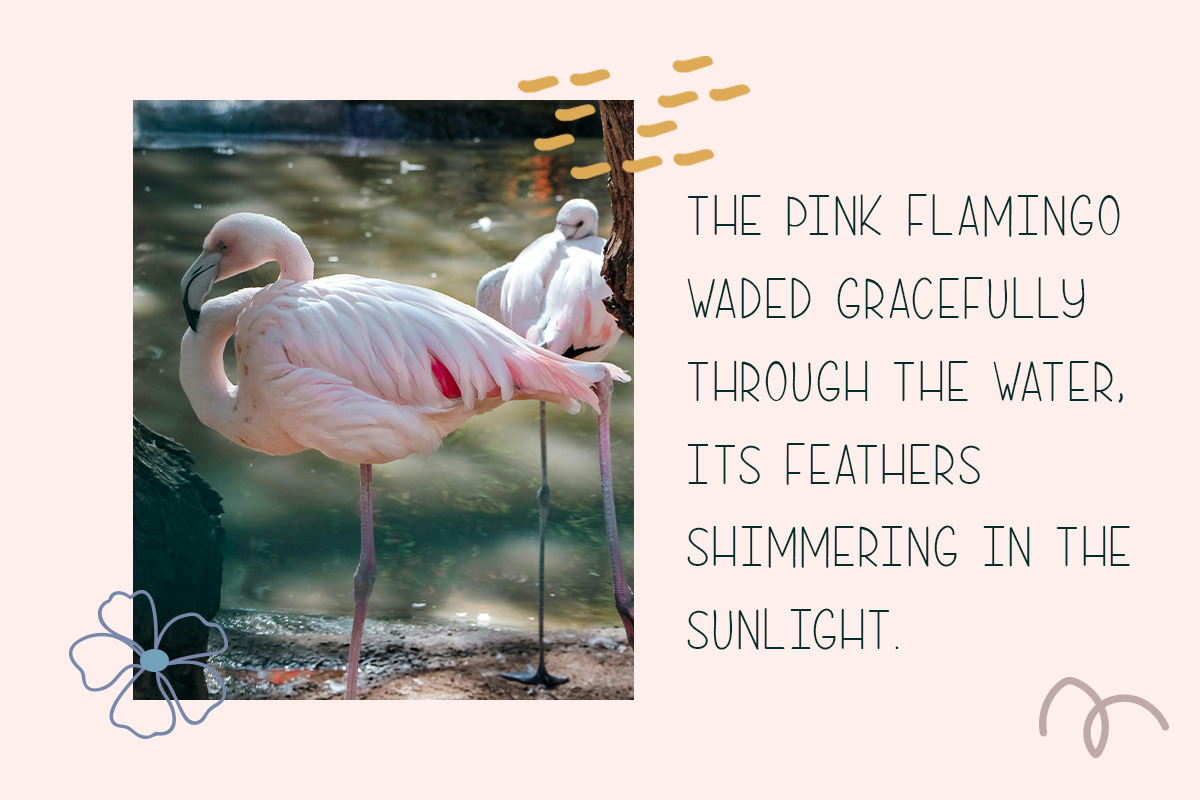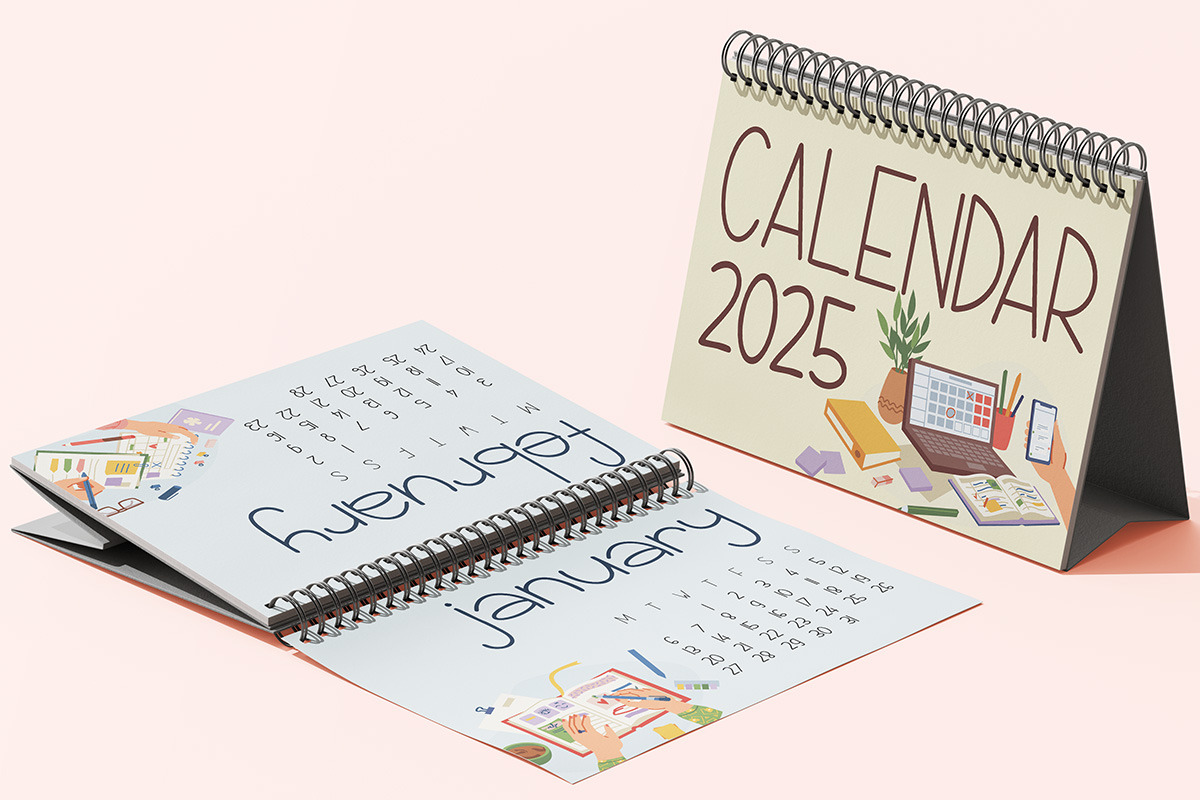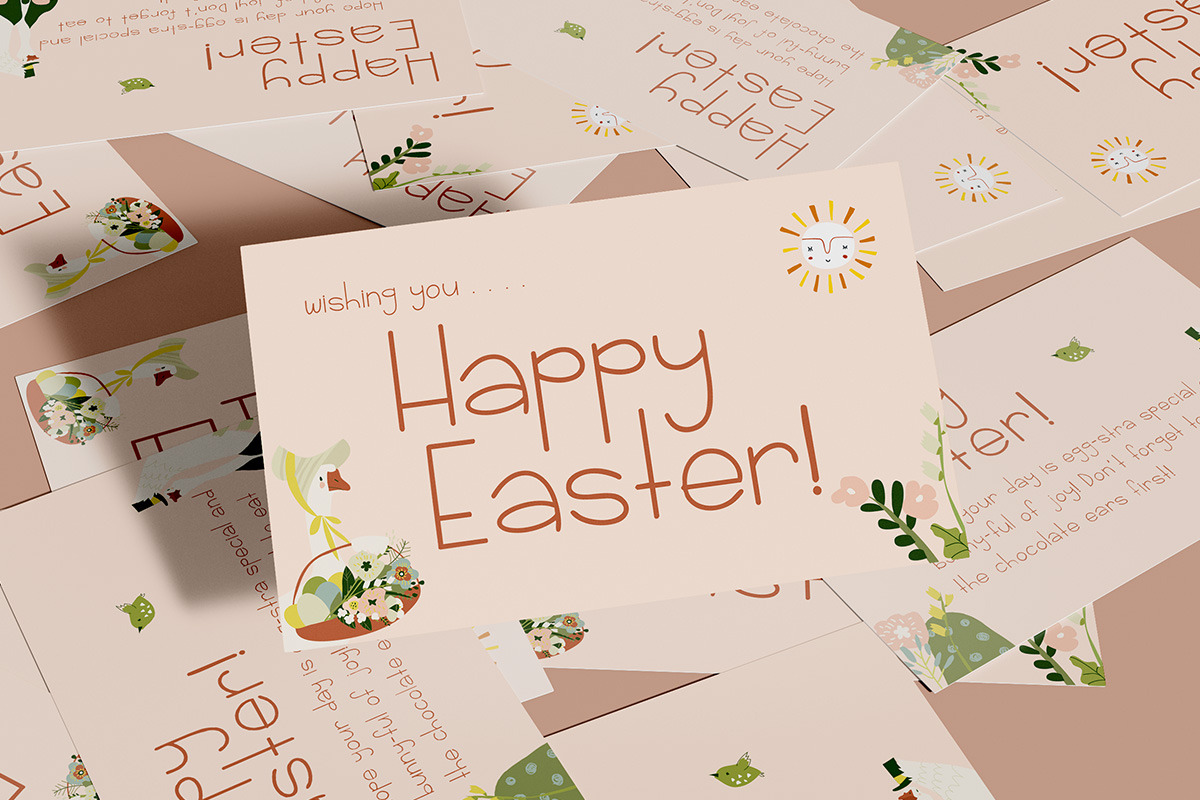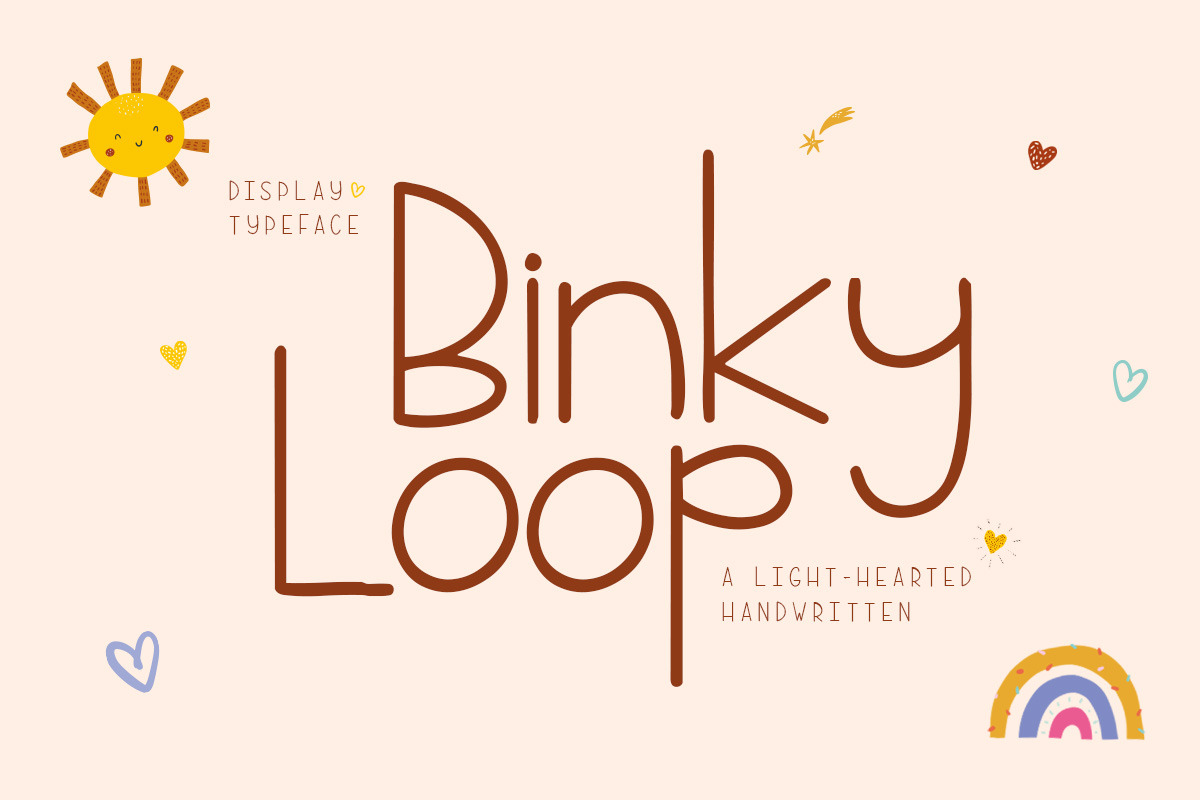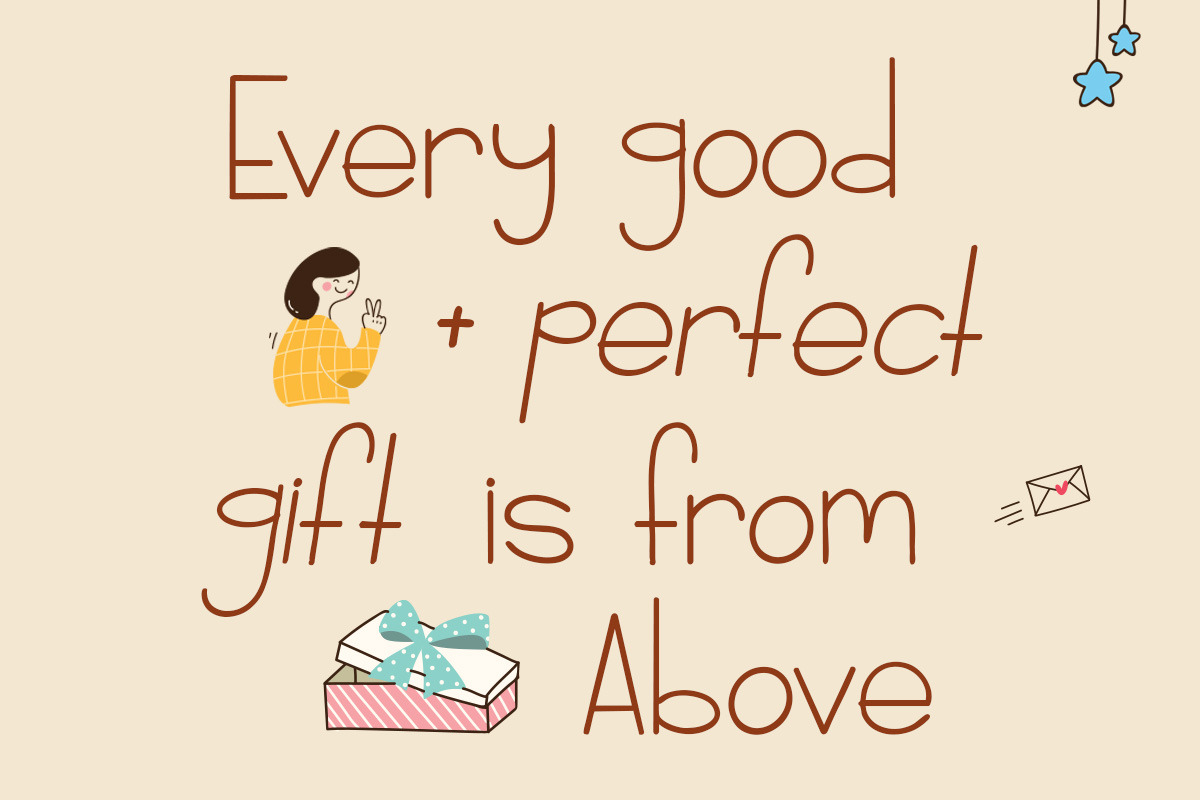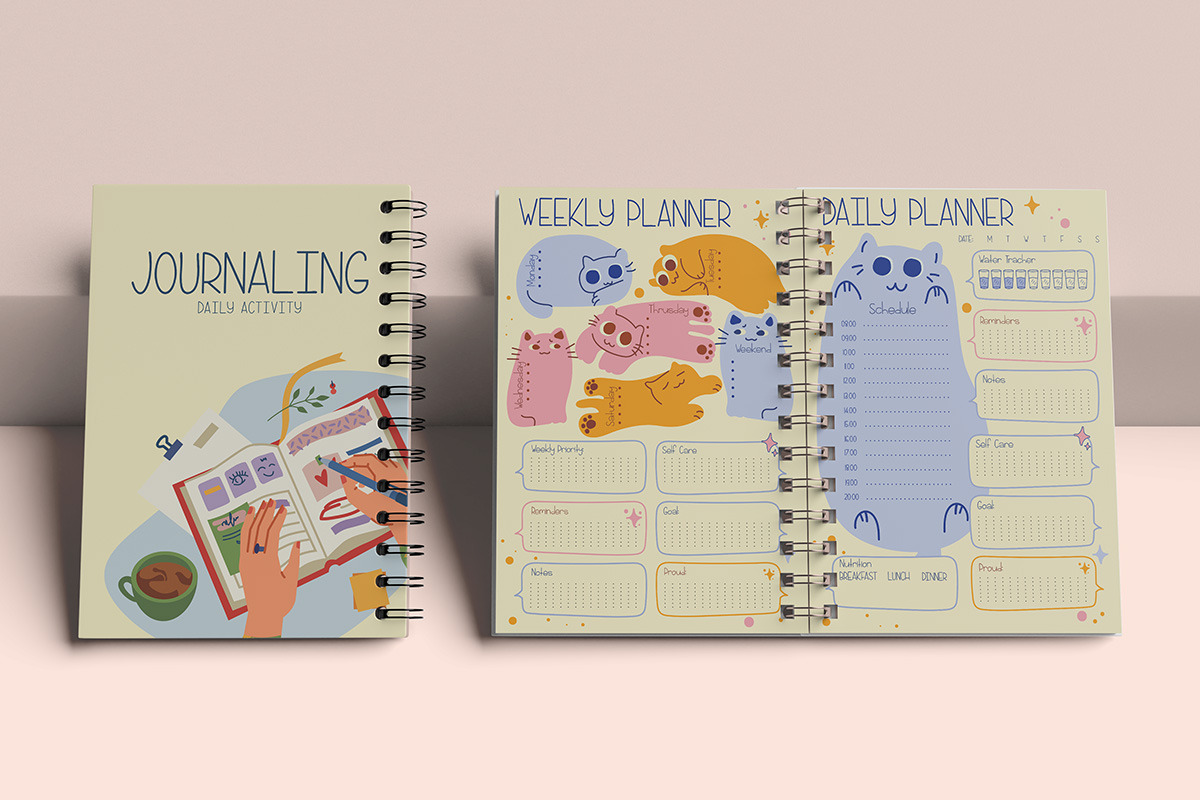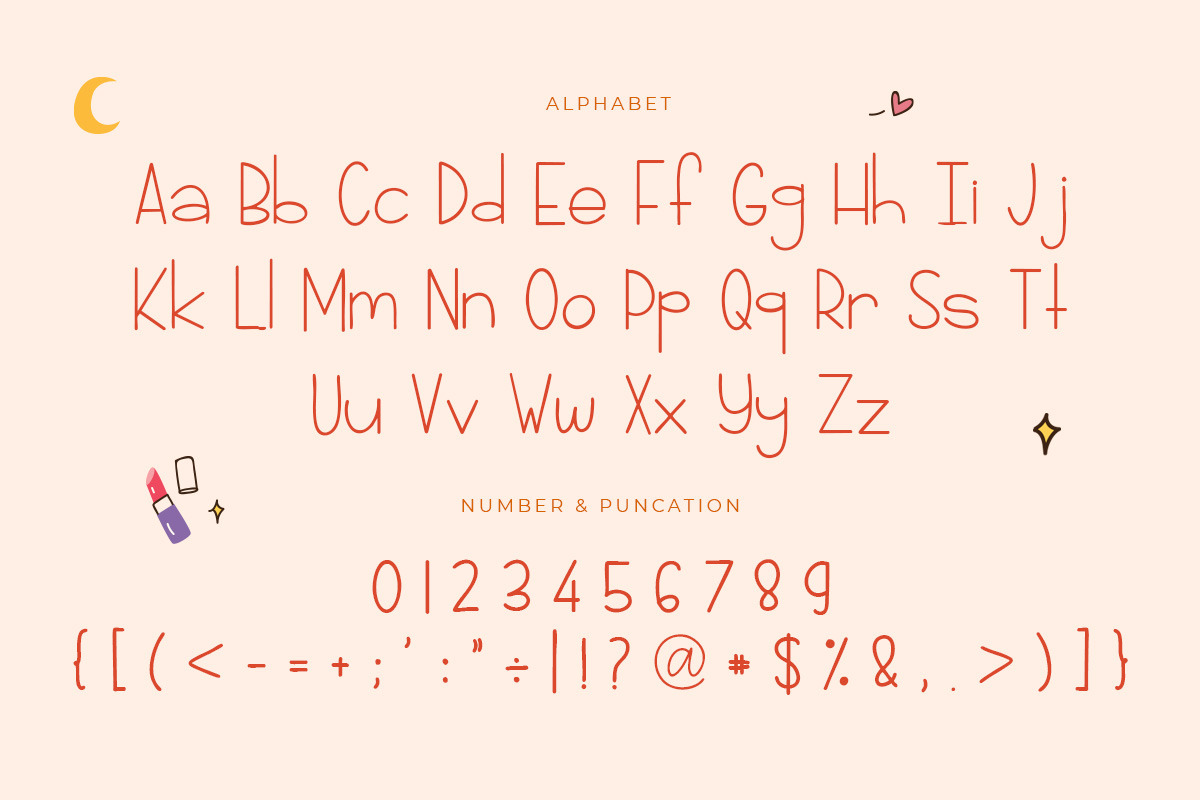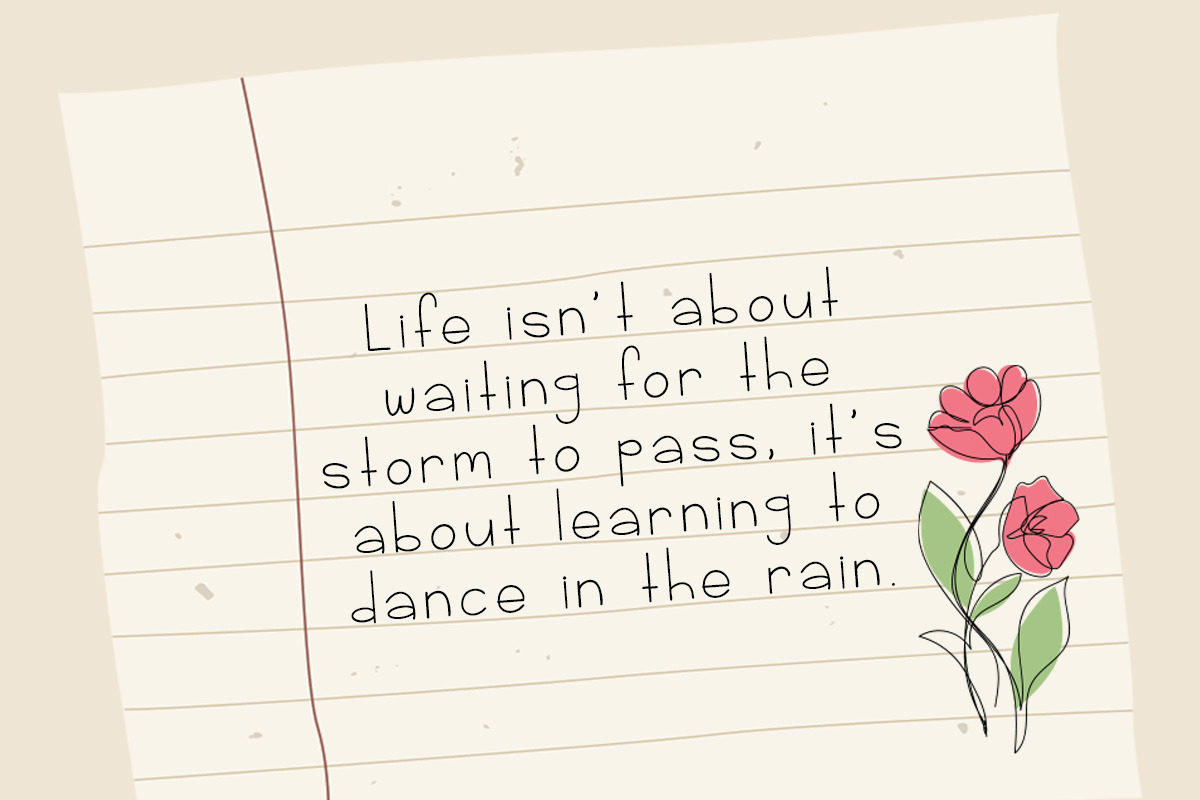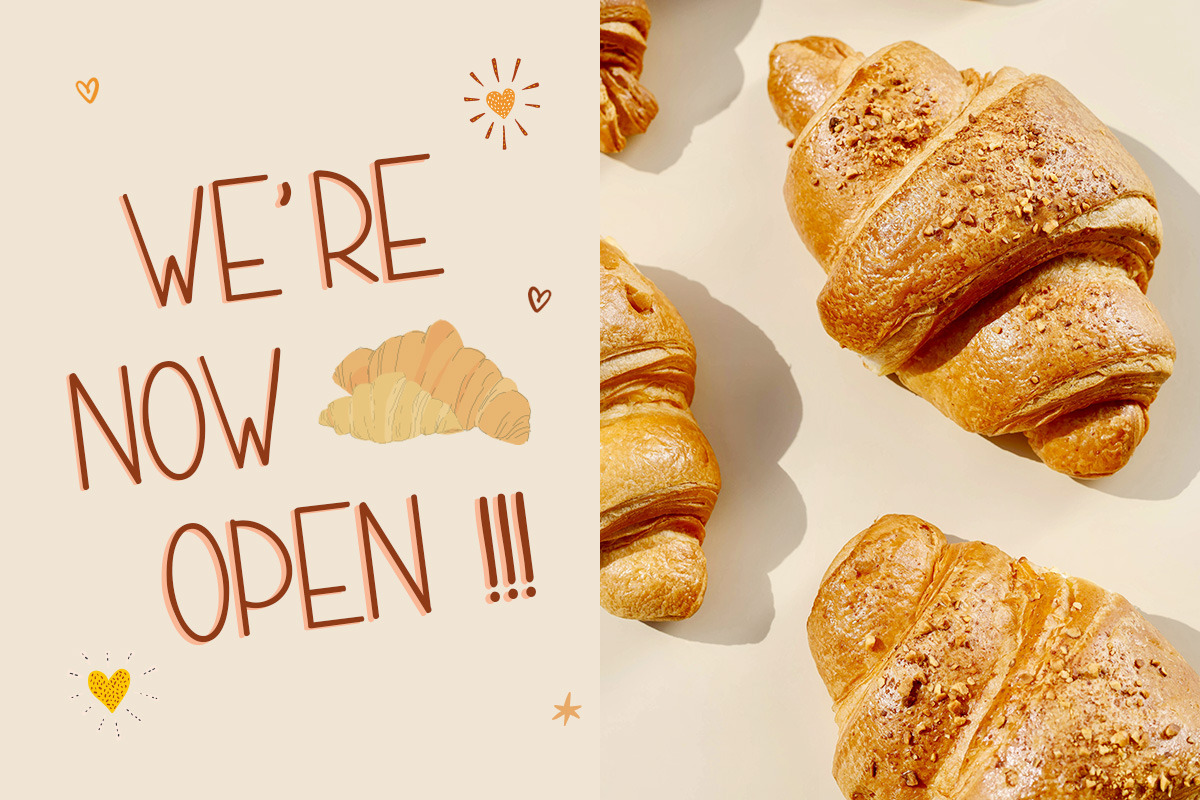
Binky Loop - Authentic Modern Script
Bring a joyful, cheerful tone to your designs with Binky Loop — a delightful handcrafted typeface full of charm and character. With its smooth loops, clean lines, and playful handwritten style, this font adds a cozy, heartwarming touch to any project. Whether you're designing for children's products, playful branding, cute packaging, or social media content, Binky Loop offers the perfect balance of modern simplicity and childlike wonder.
Crafted with love and attention to detail, this display font is ideal for those looking to evoke happiness and authenticity. The unique letterforms are easy to read yet full of personality, making it suitable for both digital design.